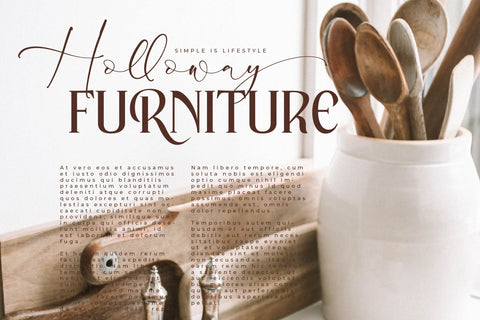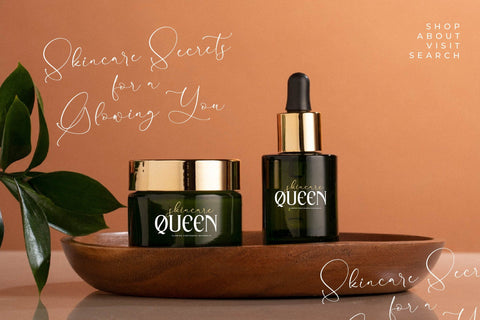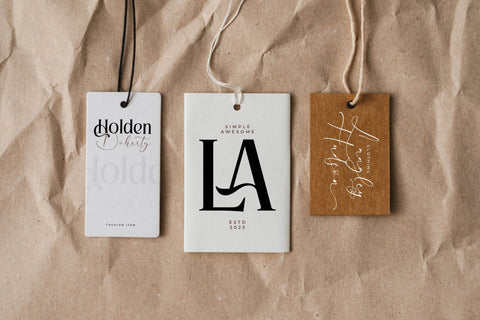
Kingdom Estella Font Duo
Proudly present Kingdom Estella Font Duo , created by Storytype,
A serif and script typeface that has own unique style & modern look.